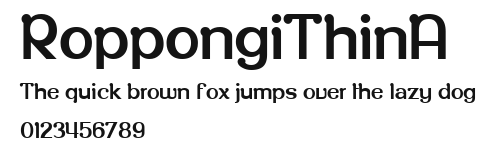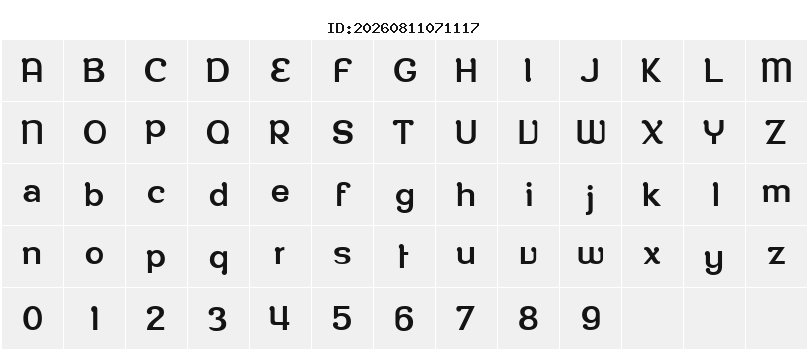
• Font Name: RoppongiThinA
• Font ID: Macromedia Fontographer 4.1 RoppongiThinA
• Full Font Name: RoppongiThinA
• Version: Macromedia Fontographer 4.1 12/25/97
• PostScript Name: RoppongiThinA
• Character Count: 174
• Copyright: Copyright Copr. 1994, (T-26) Chicago Illinois, Fred Machuca/Design
About RoppongiThinA.ttf
RoppongiThinA.ttf is a modern, elegant sans-serif font designed for ultimate readability and visual harmony. Perfect for branding, headlines, web design, and print materials.